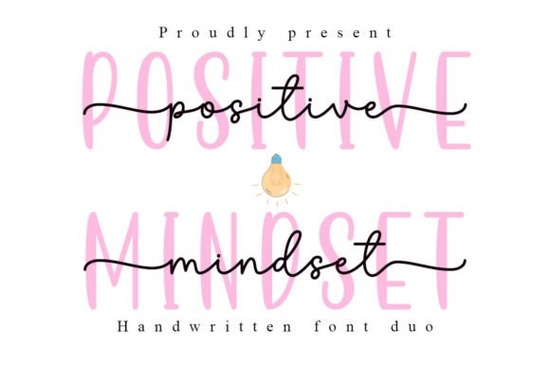
If you're a designer, crafter, or print-on-demand seller looking for a font pair that adds a cheerful, polished feel to your work, the Positive Mindset font duo is worth a close look. It combines two complementary typefaces one called Positive Mindset itself, and the other named Beautiful Wildflower that work together to bring a light, stylish energy to anything from greeting cards to T-shirt designs. Both fonts include extra glyphs and swashes (thanks to PUA encoding), so you can customize letters without needing special software.
What makes the Positive Mindset font duo special?
The main draw is how seamlessly the two fonts pair. The primary Positive Mindset font has a playful, slightly bouncy script style that feels modern but not overly casual. The accompanying Beautiful Wildflower font adds decorative flourishes, ligatures, and alternate characters like swirly tails and floral-inspired shapes that give your text a handcrafted, whimsical touch. When used together, they create contrast without clashing: the script stays readable while the wildflower elements add personality. You can also use each font on its own for simpler projects.
Is this font pair easy to use for beginners?
Yes. Because both fonts come with PUA (Private Use Area) coding, you can access the extra characters directly through your design software's glyph panel even if you're not a font expert. No complicated workarounds are needed. The duo is also OpenType-compatible, so if you work in programs like Adobe Illustrator, Photoshop, or Canva (the desktop version), you can easily swap in swashes and alternates. The instructions included in the download are straightforward, so even someone new to crafting with fonts can get good results quickly.
How can crafters and small businesses use these fonts in real projects?
The possibilities are broad. Here are a few practical ways to put the Positive Mindset duo to work:
- Greeting cards and invitations – Use the script for the main message and add swashes for decorative accents. The joyful style works well for birthday, thank-you, or congratulations cards.
- Print-on-demand products – For mugs, tote bags, or phone cases, the font's upbeat feel can help your designs stand out. Pair it with simple icons or watercolor backgrounds.
- Social media graphics – Quote posts or announcements become more eye-catching with the variety of letterforms. The swashes can frame text or act as dividers.
- Planner and journal layouts – Hand-lettered headings and embellishments give a DIY look that many hobbyists love. The font works beautifully for bullet journal headers.
- Logo design – For small businesses or personal brands with a friendly, creative vibe, this font duo offers enough character without being too flashy.
Which projects benefit most from the Beautiful Wildflower swashes?
The decorative elements really shine when you have a bit of space to let them breathe. They work well as standalone flourishes at the end of a line, as letter connectors, or as small ornamental graphics. For example, if you're designing a wedding invitation, you can use the swashes to create a floral border or to highlight the couple's names. The swashes are also great for adding a hand-drawn feel to quote art or wall prints. Just be careful not to overcrowd your design sometimes one or two well-placed swashes are more effective than many.
What about pairing this font with other design elements?
The Positive Mindset duo pairs nicely with light textures, watercolor washes, and botanical illustrations. Because the fonts themselves have a clean yet playful structure, they don't fight for attention. You can combine them with simple geometric shapes or hand-drawn icons. For a bolder look, try using the script over a dark background with a bright accent color. The versatility makes it a solid choice for both digital and printed projects.
Quick checklist before you buy
- Check compatibility – Make sure your software supports OpenType features and PUA encoding (most modern design programs do).
- Test the fonts – Download the free sample if available, or look at demo images to see how the swashes behave in different words.
- Plan your project – Think about whether you'll use both fonts together or just one. Having a clear idea helps you avoid overcomplicating your design.
- Consider licensing – For commercial use, confirm the license covers your intended number of products (print-on-demand, merchandise, etc.).